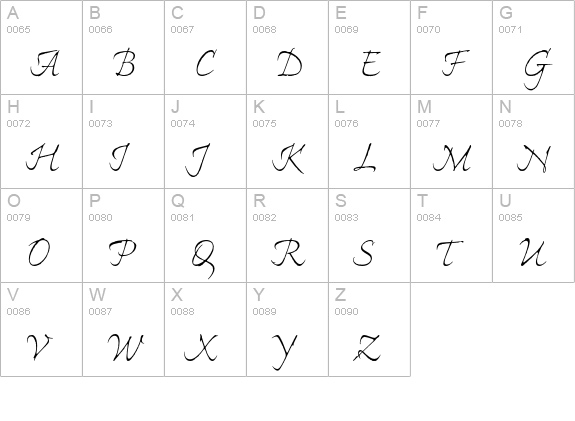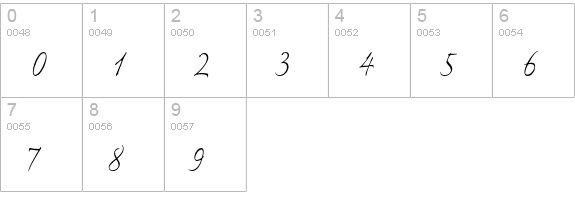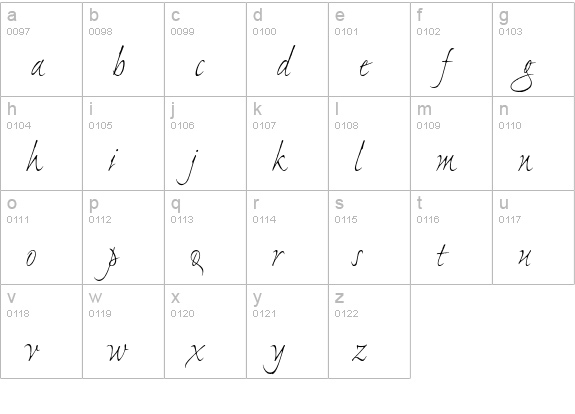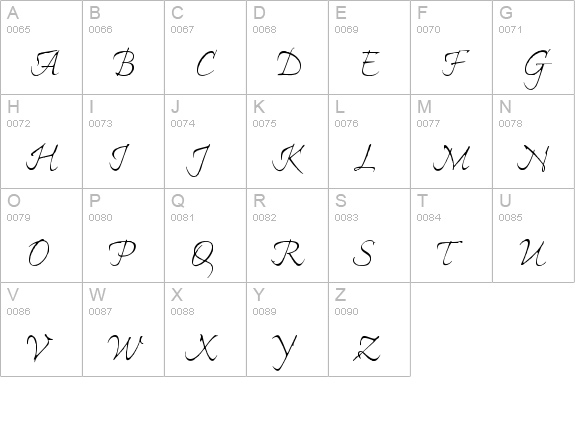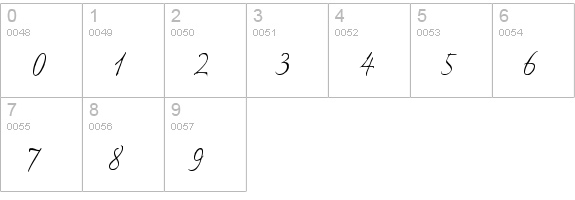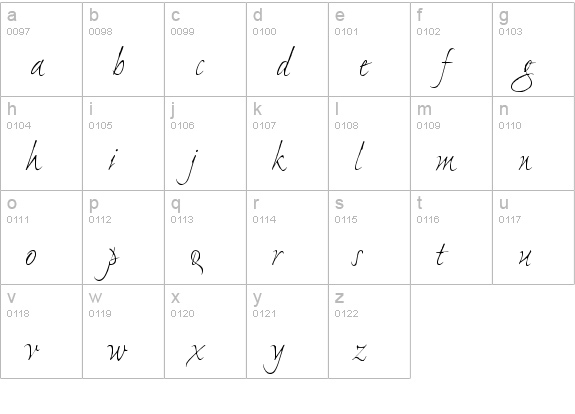
Ex Ponto Pro Light Font Details
Ex Ponto Pro Light is a refined, elegant variant in the Ex typeface family \xE2\x80\x94 well suited to elegant body text, refined sub-headings, and luxury branding.
Ex Ponto Pro Light is a sleek and elegant typeface that exudes sophistication and modernity. With its clean lines and minimalist design, this font is perfect for projects that require a touch of refinement and style. The light weight of Ex Ponto Pro Light adds a sense of airiness and grace to any text, making it ideal for use in editorial design, branding, and advertising. What sets Ex Ponto Pro Light apart is not only its aesthetic appeal, but also the fact that it is available for free download at FontsMarket.com. This means that you can easily access this high-quality font without any cost, making it a valuable addition to your design toolkit. Whether you are a professional designer or a hobbyist looking to elevate your projects, Ex Ponto Pro Light is a versatile and accessible option that will enhance your work with its timeless elegance.